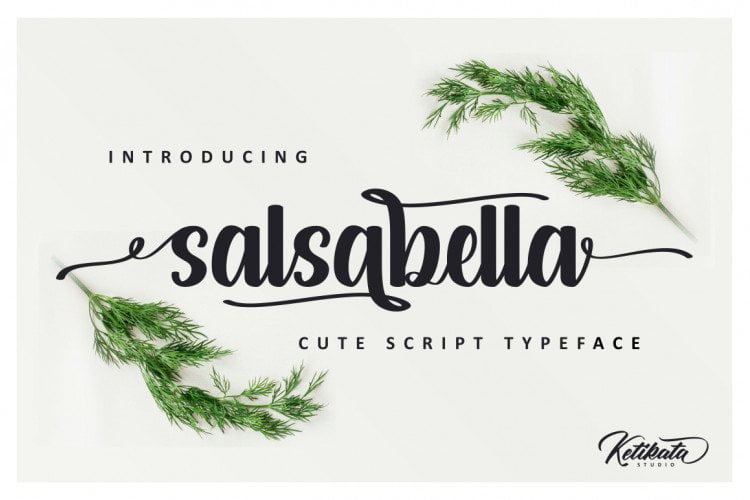
Salsabella Cute Script Font
We made this font carefully so that each letter could be connected well and elegantly either using alternate or not.
with start and ending swash, and middle swash for some letters, this is very easy to use, just rely on your creativity!